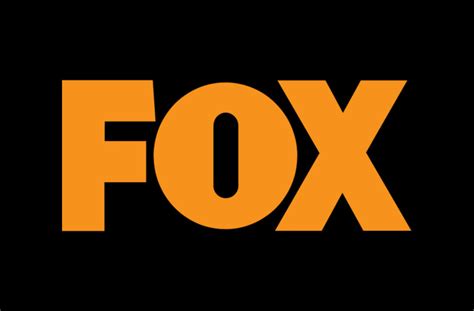
Iwhite Fox Logo Font: A Comprehensive Guide
Choosing the right font for your logo is super important, guys! It’s like picking the perfect outfit – it has to match your brand’s personality and make a lasting impression. When it comes to the iwhite fox logo font , you’re probably looking for something sleek, modern, and maybe a little bit mysterious, right? Let’s dive deep into what makes a font work for a logo like iwhite fox and explore some killer options.
Understanding the Iwhite Fox Brand Identity
Before we jump into specific fonts, it’s crucial to understand the brand identity of Iwhite Fox. What do they stand for? What’s their vibe? Generally, when a brand includes words like “white” and “fox”, it evokes a sense of purity, sophistication, and cleverness. Think about these qualities: cleanliness , modernity , elegance , and a touch of intrigue . Your chosen font needs to reflect these attributes.
Consider the target audience too! Are they aiming for a younger, trendier crowd, or a more established, professional demographic? This will influence whether you go for a playful sans-serif or a more serious serif font. Also, think about the overall aesthetic. Is it minimalist or more elaborate? The font should complement the visual style of the rest of the branding.
Let’s talk about the feeling the logo should convey. A successful logo creates an instant emotional connection. Does Iwhite Fox want to be seen as cutting-edge and innovative? Or perhaps trustworthy and reliable? The font choice plays a HUGE role in this. A bold, geometric sans-serif might scream innovation, while a classic serif font could whisper trustworthiness. The key is to align the font’s personality with the desired brand perception. Ultimately, you want a font that not only looks good but also communicates the core values and aspirations of Iwhite Fox.
Okay, so let’s break down the main categories of fonts you’ll be choosing from. Knowing the difference between these will seriously help you narrow down your search.
Serif Fonts
Serif fonts are those with the little feet or strokes at the end of the letters. Think Times New Roman, but way cooler. These fonts often convey a sense of tradition, authority, and sophistication. They’re great if you want your brand to appear classic and reliable. Some popular serif fonts include Georgia , Baskerville , and Merriweather . For a logo, you might want to choose a serif that’s been modernized a bit, with cleaner lines and a more contemporary feel. A slightly condensed serif can also add a touch of elegance without feeling too old-fashioned.
Sans-Serif Fonts
Sans-serif fonts, on the other hand, don’t have those little feet. They’re cleaner, more modern, and often seen as more approachable. Think Arial or Helvetica, but again, let’s aim for something a bit more unique! Sans-serif fonts are super versatile and work well for a wide range of brands, especially those that want to appear contemporary and forward-thinking. Some solid choices here include Open Sans , Lato , and Montserrat . When selecting a sans-serif for a logo, pay attention to the weight and spacing. A bolder weight can make a strong statement, while careful letter spacing (kerning) ensures readability and visual appeal.
Script Fonts
Script fonts are those that look like handwriting. They can be elegant, playful, or even edgy. But be careful! They can also be hard to read if used in small sizes or for long words. Script fonts are best used sparingly, perhaps for a tagline or a single word in the logo. They add a personal touch and can convey a sense of creativity and artistry. Think about fonts like Brush Script , Pacifico , or a more modern calligraphy-inspired font. If you do use a script font, make sure it’s legible and complements the other elements of your logo.
Display Fonts
Display fonts are the wild cards. These are fonts designed for headlines and logos, and they come in all sorts of styles, from retro to futuristic. They’re meant to grab attention and make a statement. However, they can also be overwhelming if not used carefully. Display fonts are great for brands that want to stand out from the crowd and express a unique personality. Just make sure the font is still readable and reflects the overall brand message. Examples include ChunkFive , Bangers , and various geometric or abstract fonts. When using a display font , consider its impact on the overall logo design and whether it aligns with the brand’s aesthetic.
Alright, let’s get down to the nitty-gritty. Based on the potential brand identity of Iwhite Fox, here are some specific font recommendations, broken down by category:
Modern Sans-Serif Options
These fonts are clean, contemporary, and versatile, perfect for a brand that wants to appear modern and approachable:
• Proxima Nova : This is a super popular choice for a reason. It’s clean, geometric, and highly readable. It’s a great all-around font that works well in a variety of contexts.
• Montserrat : Another excellent option. Montserrat has a slightly more rounded feel than Proxima Nova, giving it a friendly and approachable vibe.
• Lato : Lato is a humanist sans-serif font that’s both readable and stylish. It has a warm and inviting feel, making it a great choice for brands that want to connect with their audience.
• Poppins : A geometric sans-serif with a playful touch. Poppins is highly versatile and works well for both headlines and body text.
Elegant Serif Options
If Iwhite Fox wants to convey a sense of sophistication and tradition, these serif fonts could be a good fit:
• Playfair Display : This is a high-contrast serif font that’s both elegant and modern. It’s a great choice for headlines and logos.
• Lora : Lora is a well-balanced serif font with a contemporary feel. It’s highly readable and works well in a variety of contexts.
• Crimson Text : A classic serif font that’s both readable and elegant. It’s a great choice for brands that want to convey a sense of trustworthiness and authority.
Unique Display Options
For a bolder, more distinctive look, consider these display fonts. But remember to use them sparingly and ensure they align with the brand’s overall aesthetic:
• Bebas Neue : A tall, condensed sans-serif font that’s perfect for headlines and logos. It has a modern and edgy feel.
• Raleway : A stylish sans-serif font with a slightly Art Deco feel. It’s a great choice for brands that want to stand out from the crowd.
• Oswald : A classic sans-serif font that’s been updated for the modern era. It’s highly readable and works well in a variety of contexts.
Font Pairing: Making Your Logo Shine
Okay, guys, here’s a pro tip: sometimes, the best logos use a combination of two fonts! This is called font pairing , and it can add visual interest and depth to your brand identity. The key is to choose fonts that complement each other without clashing. Here are some general guidelines:
• Pair a serif with a sans-serif : This is a classic combination that works well for many brands. For example, you could use Playfair Display for the “Iwhite Fox” part of the logo and pair it with Montserrat for a tagline or supporting text.
• Use different weights of the same font family : This is a safe and effective way to create visual hierarchy. For example, you could use Montserrat Bold for the main logo text and Montserrat Regular for the tagline.
• Choose fonts with contrasting styles : This can create a more dynamic and eye-catching look. For example, you could pair a modern sans-serif with a more vintage-inspired script font.
Where to Find and License Fonts
So, you’ve found the perfect font ! Awesome! Now, where do you get it, and how do you make sure you’re using it legally? Here are some popular resources:
• Google Fonts : This is a fantastic resource for free, open-source fonts. All the fonts on Google Fonts are free to use for both personal and commercial projects. Plus, they’re super easy to embed on websites.
• Adobe Fonts : If you have an Adobe Creative Cloud subscription, you have access to a vast library of high-quality fonts. Adobe Fonts are licensed for both desktop and web use.
• MyFonts : This is a commercial font marketplace where you can purchase fonts from independent designers and foundries. MyFonts offers a wide variety of fonts, from classic to cutting-edge.
• FontShop : Another popular commercial font marketplace with a wide selection of fonts.
Before using any font , be sure to check the licensing terms! Some fonts are free for personal use but require a commercial license for business purposes. Using a font without the proper license can lead to legal trouble, so it’s always best to err on the side of caution.
Conclusion: Finding the Perfect Font
Choosing the right font for the iwhite fox logo is a crucial step in building a strong and recognizable brand identity. By understanding the brand’s values, target audience, and desired aesthetic, you can narrow down your options and select a font that perfectly reflects its personality. Whether you go for a modern sans-serif , an elegant serif , or a unique display font , remember to prioritize readability, visual appeal, and consistency with the overall brand. And don’t forget to check the licensing terms before using any font ! With a little bit of research and creativity, you can find the perfect font to make the iwhite fox logo shine. Good luck, guys!